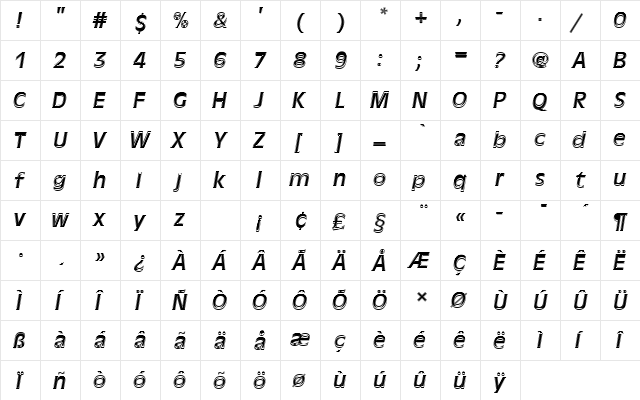
AntiqueOliTRegItaIn1 Regular
Design Context for AntiqueOliTRegItaIn1 Typeface
AntiqueOliTRegItaIn1 wears its vintage influences proudly, with letterforms that recall mid-century signage, classic packaging, and nostalgia-driven design.
Font Pairing: Combine AntiqueOliTRegItaIn1 with a simple slab or neutral sans — period-accurate companions reinforce the vintage feel without competing for attention.
Pro Tip: Use AntiqueOliTRegItaIn1 for headlines and pull quotes rather than body copy — its personality is best appreciated in short, focused bursts.